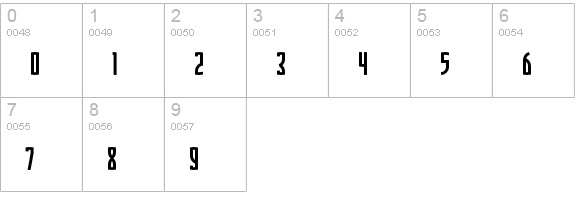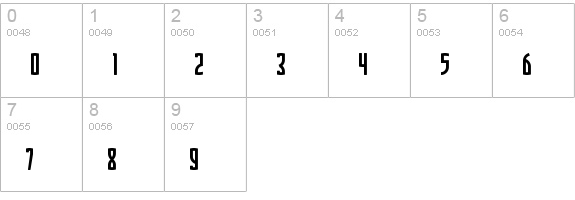
Komunique-Bold Font Details
Komunique-Bold is a strong, high-contrast variant in the Komunique typeface family \xE2\x80\x94 well suited to headlines, attention-grabbing titles, and strong calls-to-action.